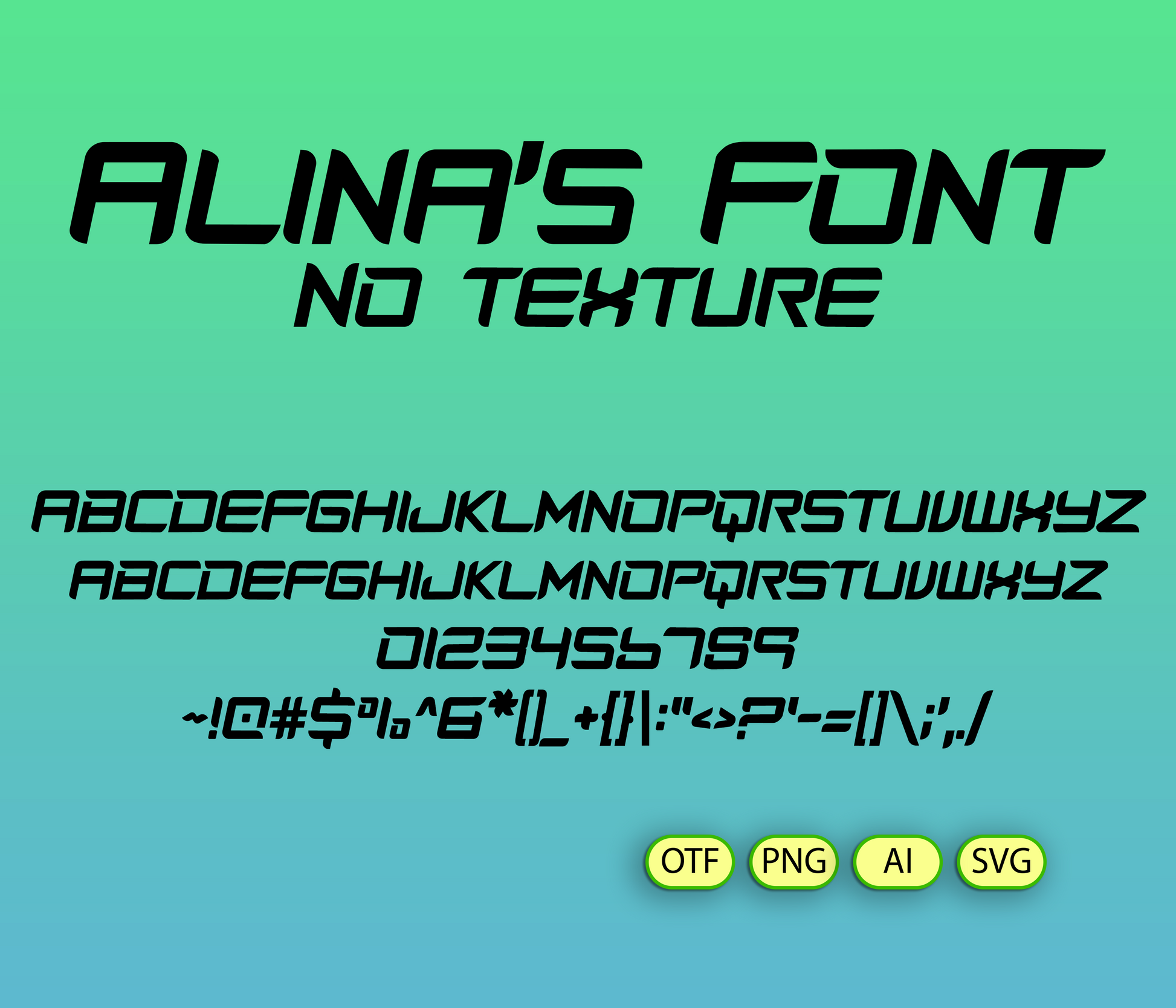
Web-Slinging Superhero Font
Swing into action with our Web-Slinging Superhero Font, capturing the essence of New York's favorite wall-crawler! This dynamic typeface brings the excitement and energy of comic book adventures to life, perfect for fans, designers, and creators looking to add a touch of arachnid-inspired heroism to their projects.
What is the Web-Slinging Superhero font?
Imagine a font that embodies the agility and strength of a masked vigilante with spider-like abilities, featuring characters designed to evoke the feeling of swinging through city skyscrapers. Our Web-Slinging Superhero font showcases bold, action-packed letterforms that seem to stick to any surface, complete with subtle web-like details that pay homage to the iconic hero without infringing on any protected properties.
What You Can Do With Web-Slinging Superhero Font
• Comprehensive Character Set: Offers a wide range of characters, including numbers and special symbols.